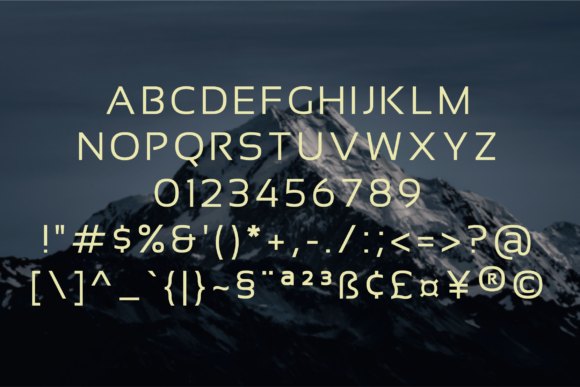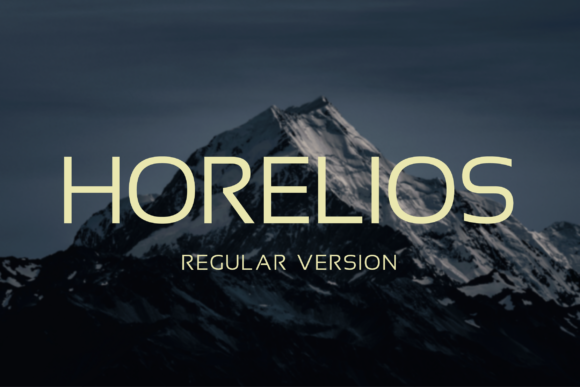
Introduction to Horelios Font
Horelios is a minimalistic, timeless, and stunning all caps sans serif font that looks beautiful in layouts, headers, web, and many other contexts.
Horelios is a minimalistic, timeless, and stunning all caps sans serif font that looks beautiful in layouts, headers, web, and many other contexts!